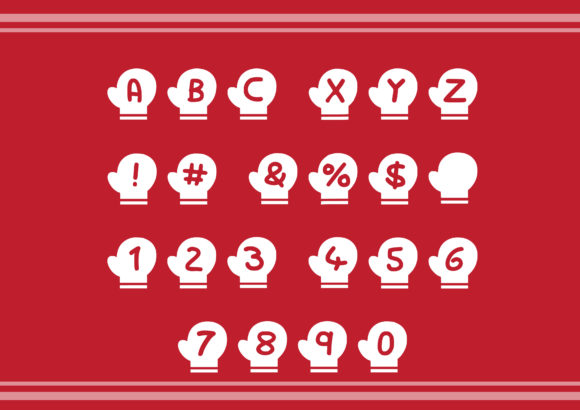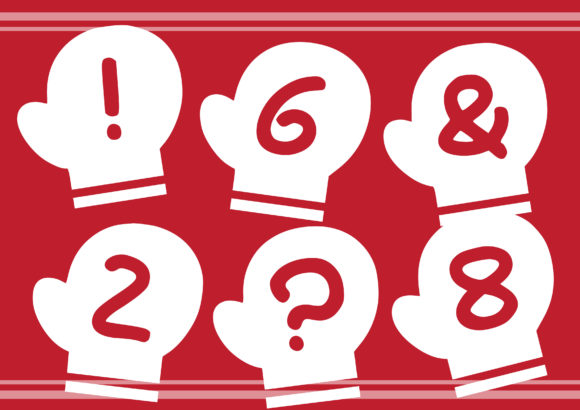
Introduction to Play Boxing Font
Have you ever stared at a blank canvas, brainstorming the perfect design for a creative project? The blank page stares back at you, taunting you to come up with something truly special. It’s in these moments that we often turn to the world of fonts, searching for that one perfect combination of style and elegance to bring our vision to life.
One font that has captured the hearts of designers and crafters alike is the incredibly cool and interestingly designed decorative font known as Play Boxing Font. This high-quality design resource is perfect for anyone looking to add a touch of whimsy and personality to their work, whether it’s a digital design, a presentation, or even a handmade greeting card.
Key Features of Play Boxing Font
- High-quality design resource ideal for creative projects, offering a unique and stylish look.
- Designed with a bold and playful style, making it perfect for use in sports-related designs, particularly boxing-themed projects.
- Features a large character set, including uppercase and lowercase letters, numbers, and punctuation marks.
- Available in a single weight, making it easy to use and consistent in design applications.
Honest Review: Play Boxing Font
I recently stumbled upon the Play Boxing Font while searching for a bold and eye-catching font for a creative project, and I must say it’s been a game-changer. The high quality of this font has allowed me to elevate my designs to the next level.
What works well about the Play Boxing Font is its versatility. It’s perfect for creating attention-grabbing headlines, titles, and even logos. The font is also available for free download, making it a valuable resource for designers on a budget. The transparent background is another plus, allowing for seamless integration with any design.
- ✨ High-quality design
- ✨ Versatile and suitable for various design applications
- ✨ Transparent background for easy integration
One limitation of the Play Boxing Font is its limited character set. While it’s perfect for short text, it may not be the best choice for longer blocks of text. Additionally, the font may not be suitable for use in small sizes, as it can become difficult to read.
Overall, I’m thoroughly impressed with the Play Boxing Font. Its unique style and high quality make it a valuable addition to any designer’s toolkit. While it may have some limitations, it’s definitely worth considering for your next creative project.
Use Play Boxing Font for your creative projects that require a high-quality and unique design resource. This font is perfect for creating eye-catching titles, headings, and logos.
Play Boxing Font is commonly used for:
1. Creating high-quality titles and headings for websites, social media, and marketing materials.
2. Designing unique logos and branding materials.
3. Adding a touch of personality to your creative projects,